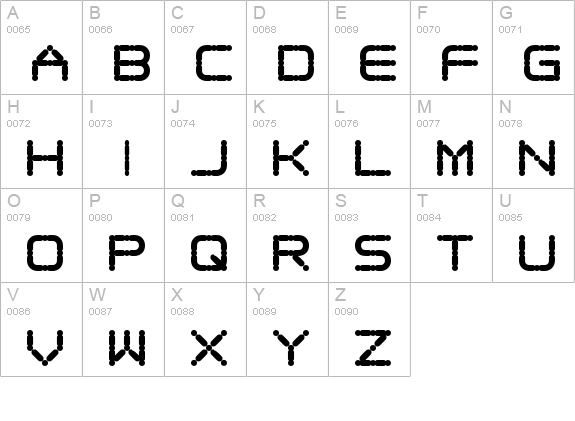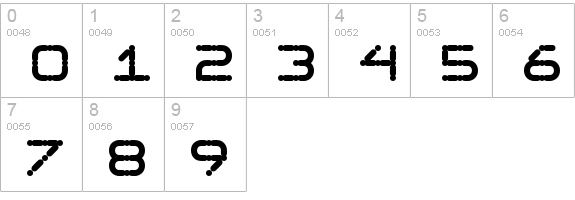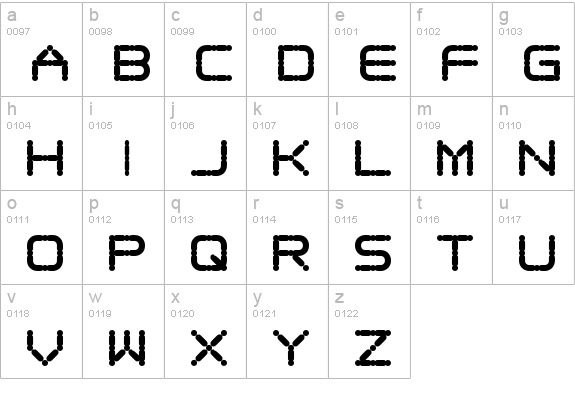
Ego Trip Fat font is a bold and eye-catching typeface that exudes confidence and style. Its thick, rounded letters make a strong statement and are perfect for headlines, logos, and branding projects. This versatile font is free to download at FontsMarket.com, making it accessible to designers and creatives looking to add a touch of boldness to their work. Stand out from the crowd with Ego Trip Fat font and make a statement with your designs.